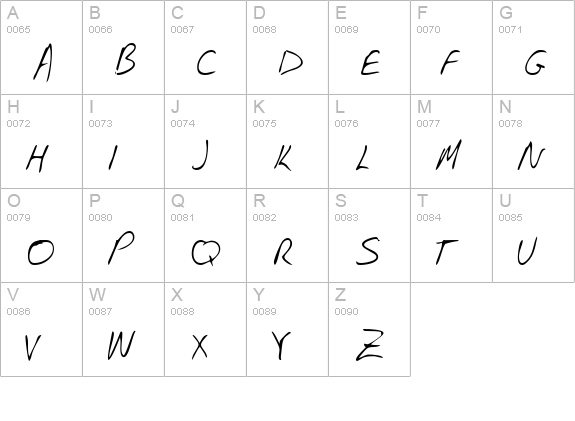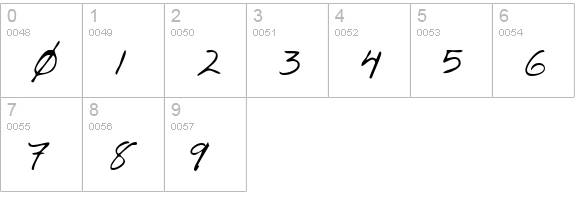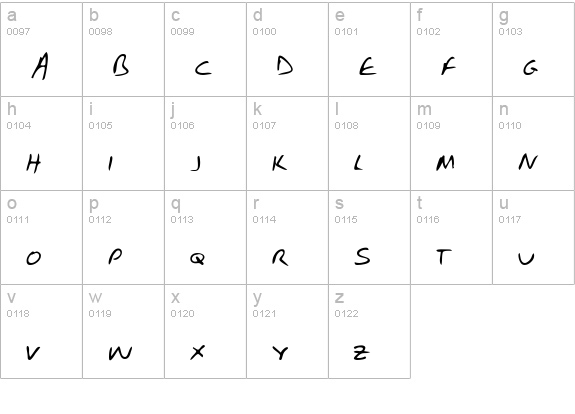
FostersHand Font Details
FostersHand is a charming and versatile script font that exudes elegance and personality. With its beautiful handwritten style, FostersHand is perfect for adding a touch of sophistication to any project. Whether you're designing invitations, branding materials, or social media graphics, this font will elevate your work to the next level. What sets FostersHand apart is its seamless flow and graceful curves, making it a standout choice for any design project. The font's unique character and expressive nature will captivate your audience and leave a lasting impression. The best part about FostersHand is that it's completely free to download at FontsMarket.com. Yes, you read that right - you can easily access this stunning font at no cost, making it a fabulous addition to your font library without breaking the bank. So why wait? Enhance your designs with FostersHand today and let your creativity shine with this exquisite and freely available font.